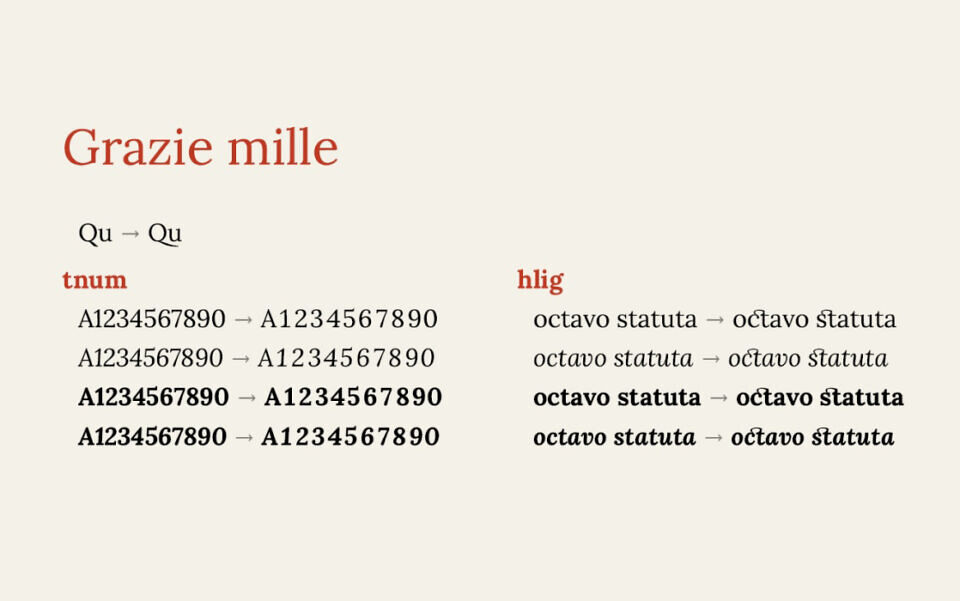
Grazie Mille, a free variable serif font derived from Lora, merges modern style with calligraphic flair. Designed for digital and print, it boasts smooth curves and balanced proportions for readability and elegance.
With adjustable weights and styles, it suits editorial, branding, and web design. Its organic flow and subtle contrast fit storytelling and creative projects. Grazie Mille offers versatile, timeless charm for body text or headlines.